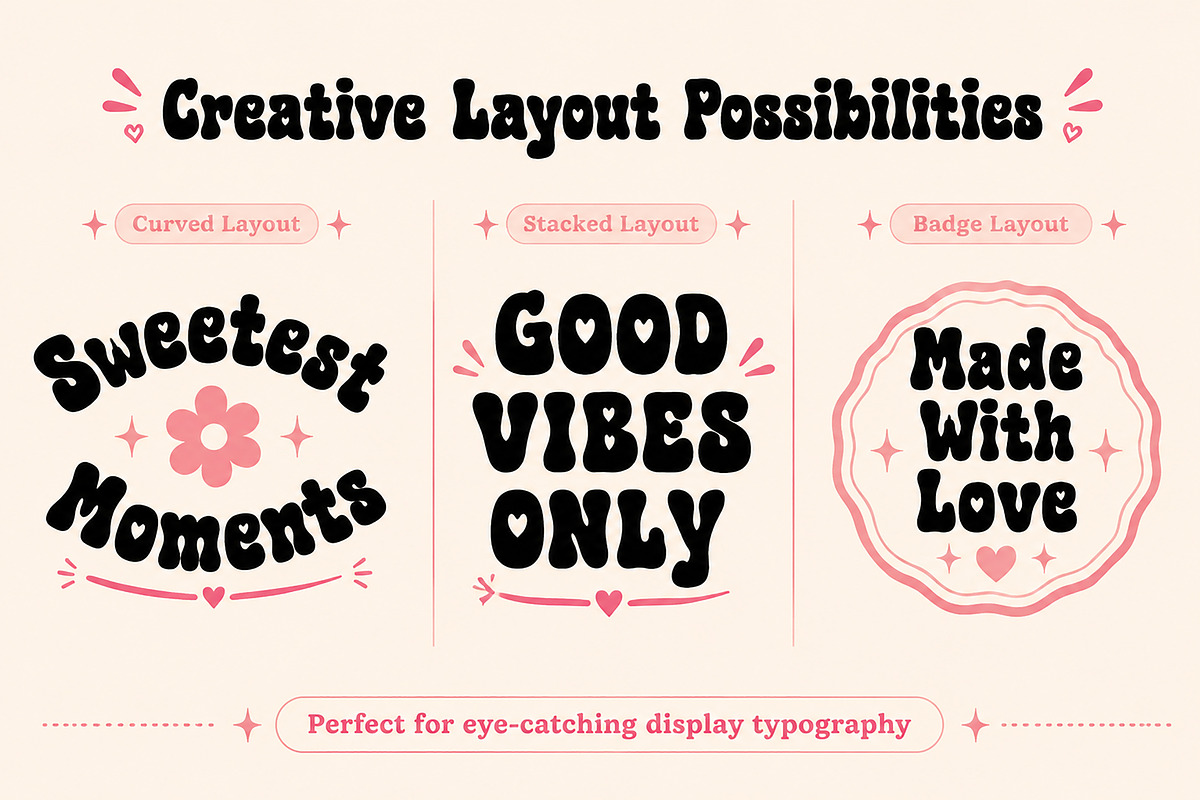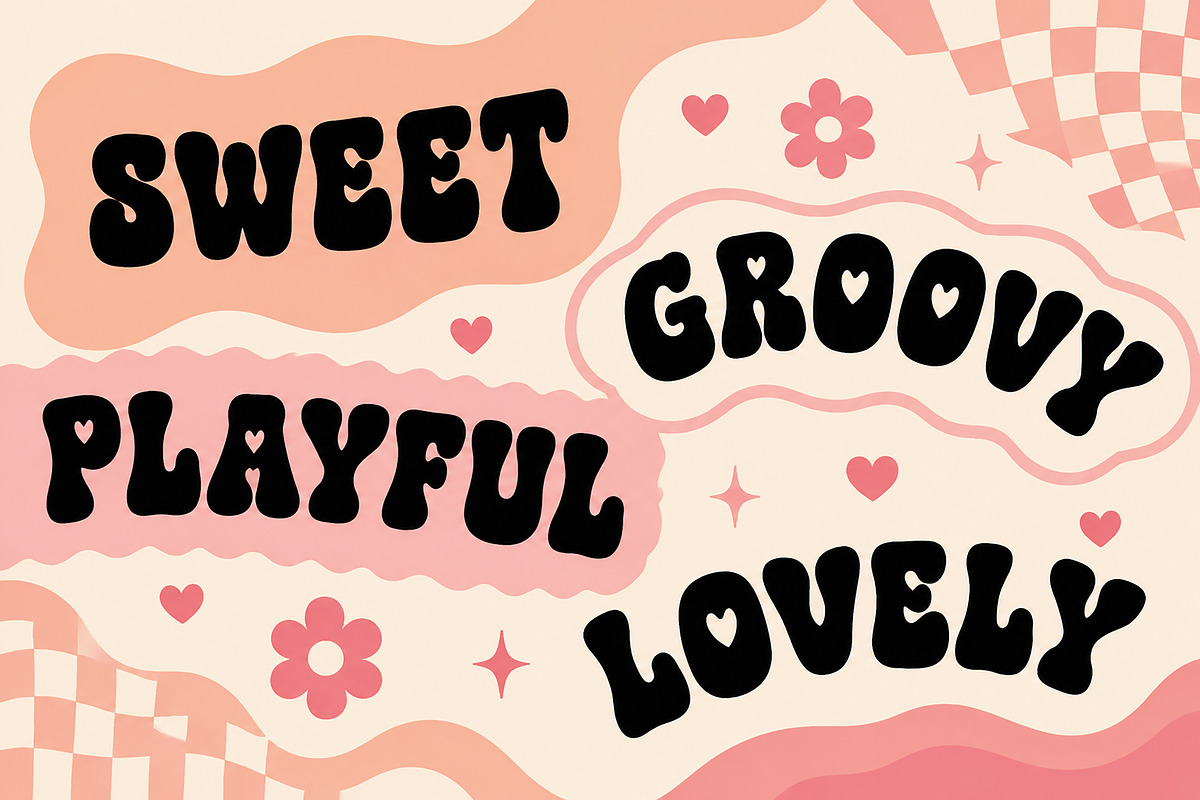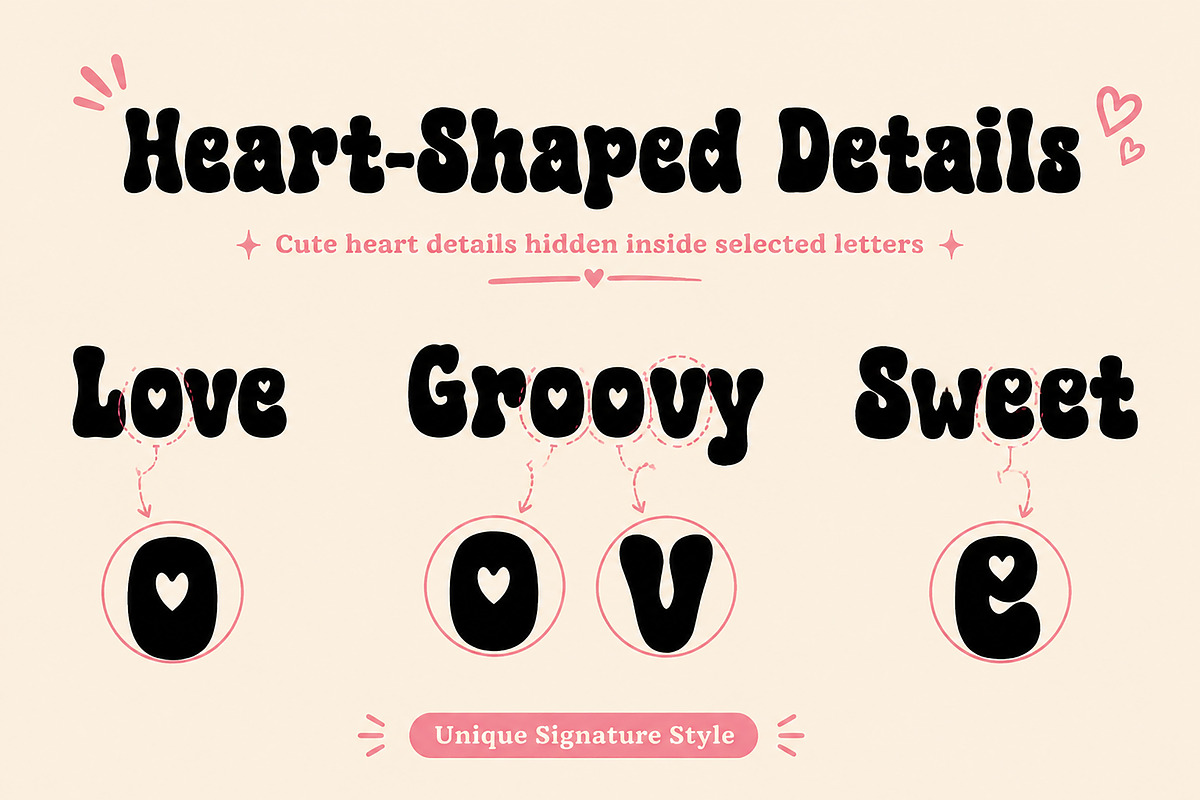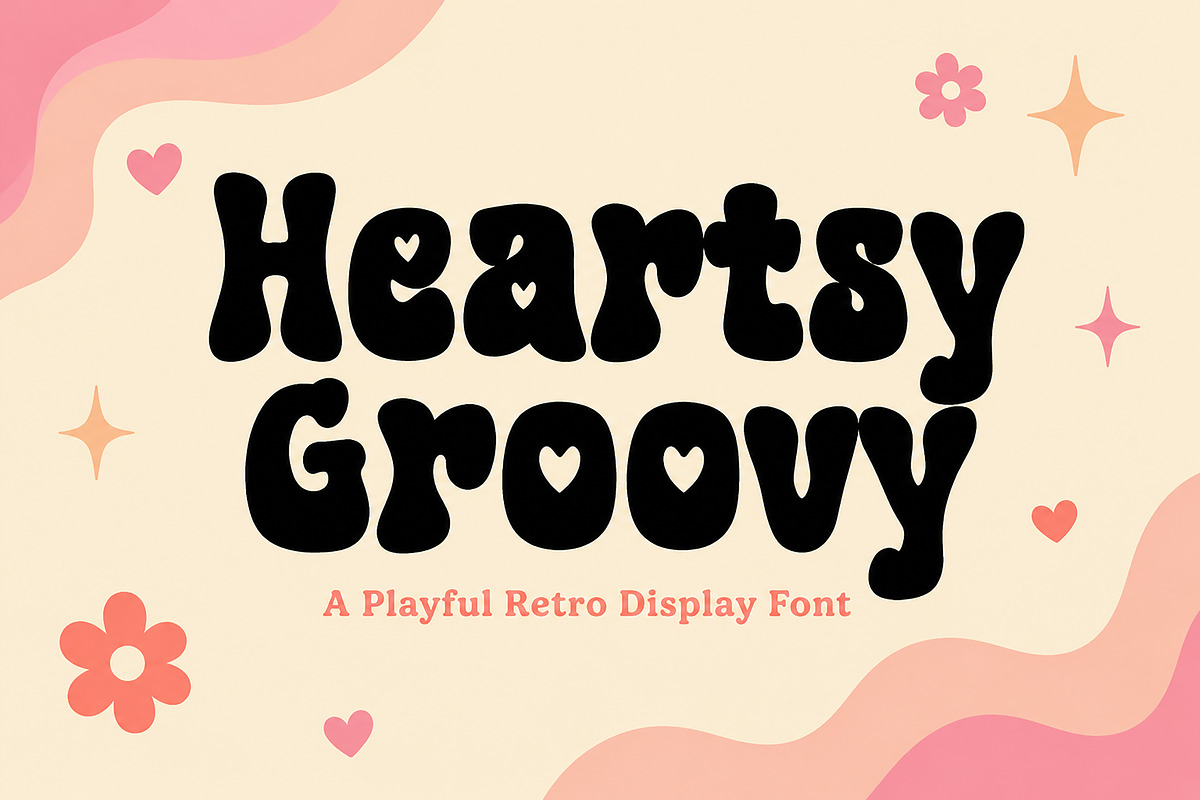
Heartsy Groovy
Heartsy Groovy | Cute Retro Display Font with Heart Details
Bring fun, love, and retro vibes to your next creative project with Heartsy Groovy—a bold display font featuring charming heart-shaped details inside selected letters. Designed with a playful 70s-inspired style, this font is perfect for creating eye-catching designs that instantly stand out.
Whether you're designing branding, social media graphics, stickers, packaging, invitations, or bold headlines, Heartsy Groovy adds a warm, cheerful personality to every project.
Logos
Branding
Headlines
Posters
Packaging
Stickers
Invitations
Greeting Cards
T-Shirt Designs
Kids' Products
Valentine's Day Designs
Birthday Designs
Cricut Projects
DIY Crafts
Bold Retro Display Style
Cute Heart-Shaped Letter Details
Easy to Read
High-Quality Letterforms
Perfect for Large Titles & Headlines